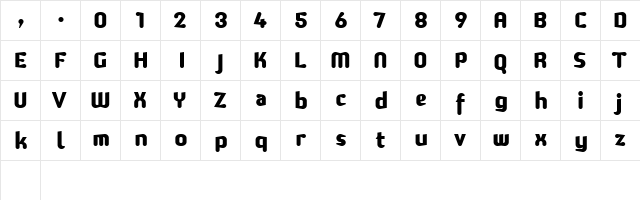
Crem S Bold
Design Context for Crem S Typeface
Crem S offers clean, dependable letterforms without strong stylistic allegiance, making it a practical choice for designers who need flexibility. The heavy weight commands attention and anchors typographic hierarchies.
Pro Tip: Use Crem S in both headline and body roles to test its range before committing to a single application.